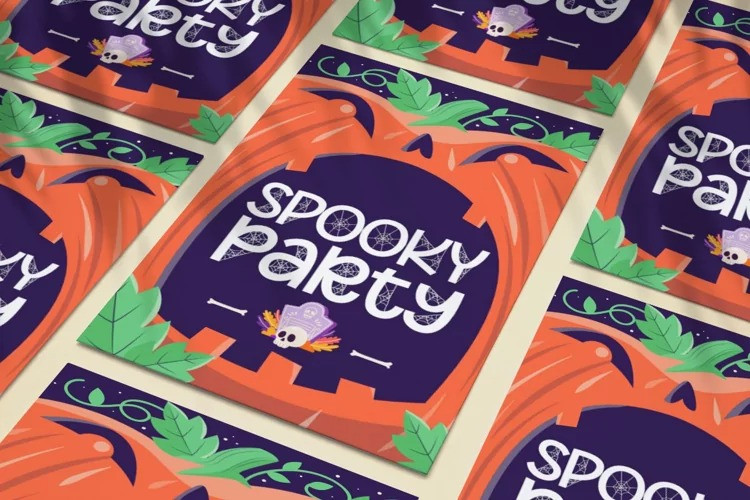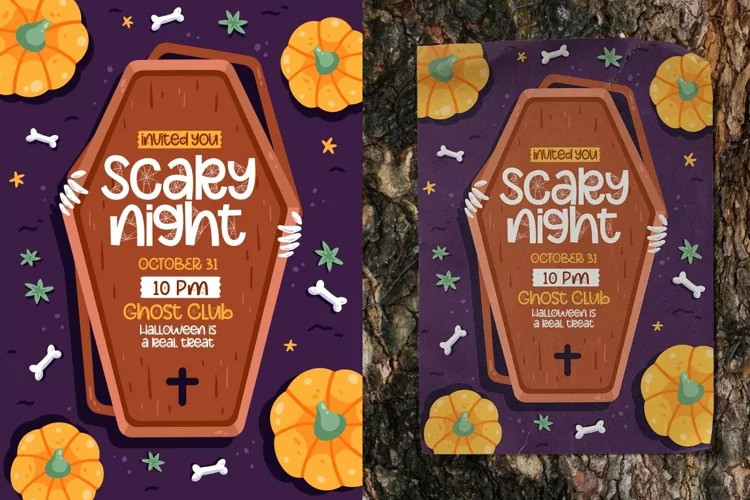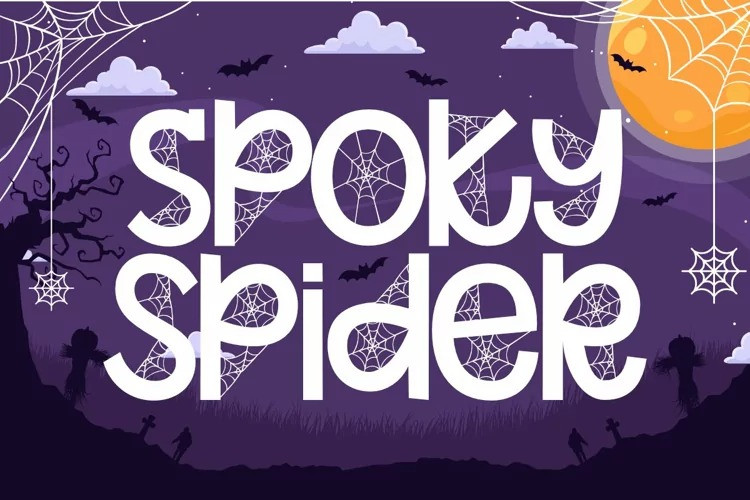
Spoky Spider Font
Introducing ” Spoky Spider Display Font ” A Halloween Font. You Can Mix And Match for Your Awesome Project
This fonts is ideal for crafting, branding and decorate your any project. This fonts are perfect for wedding invitation or your blog. Also with their help, you can create a logo or beautiful frame for your home. Or just use for your business, book covers, stationery, marketing, magazines and more.